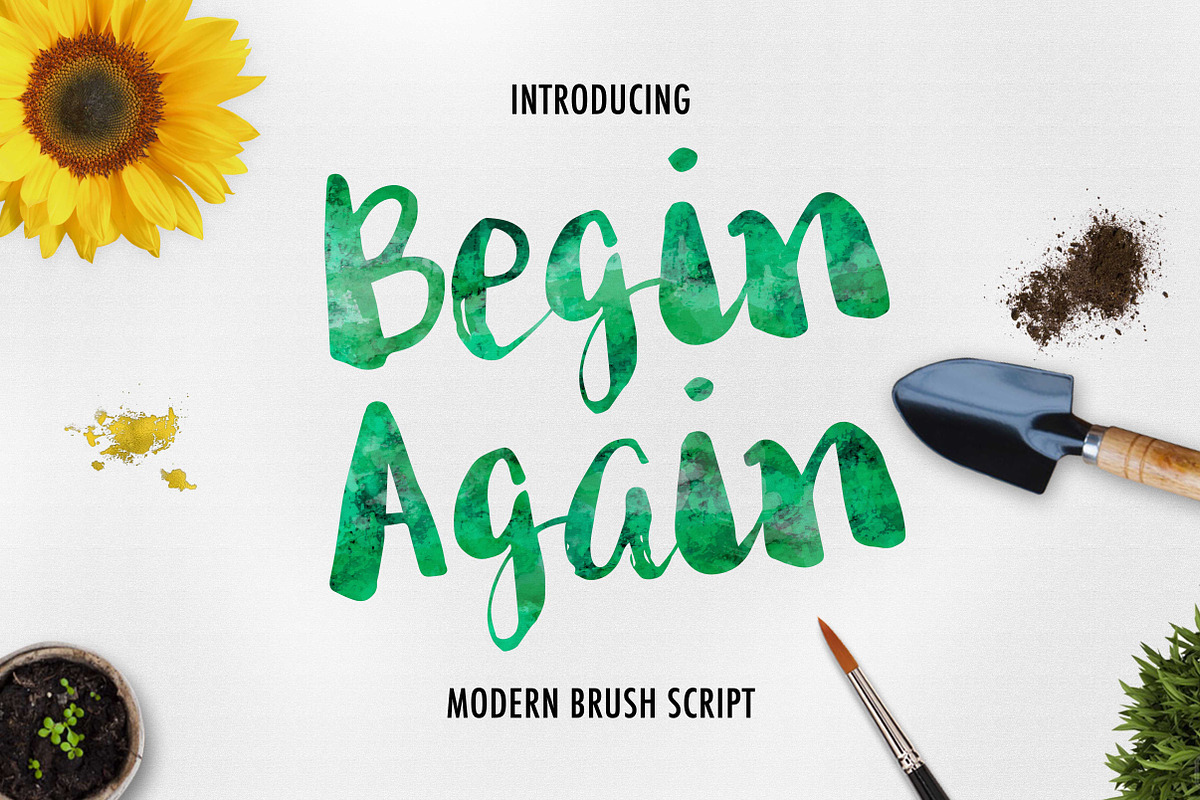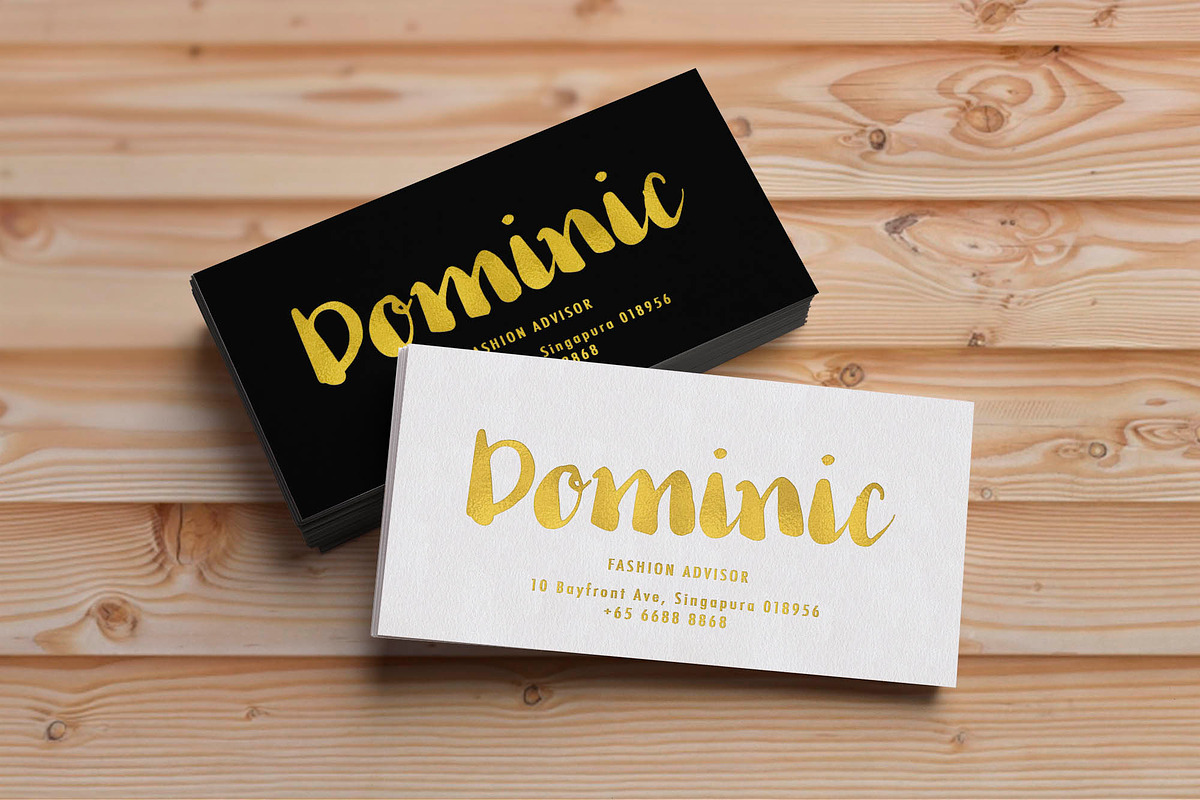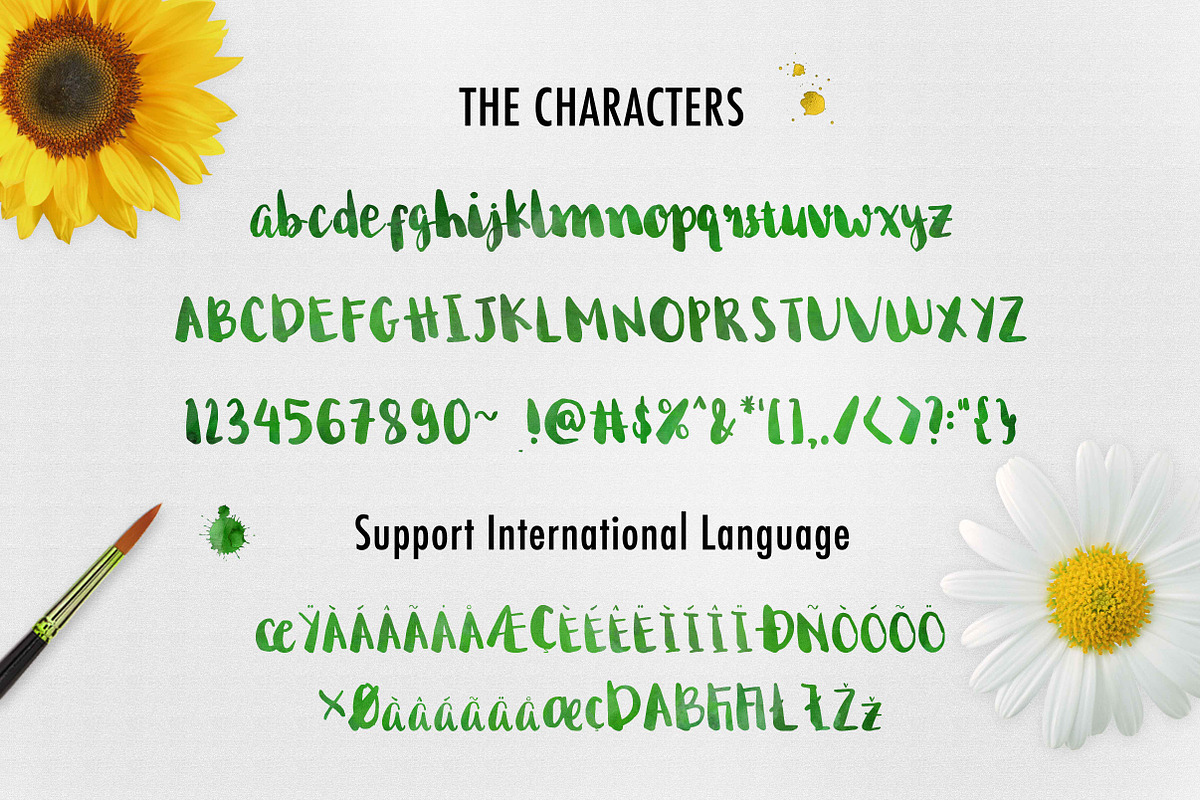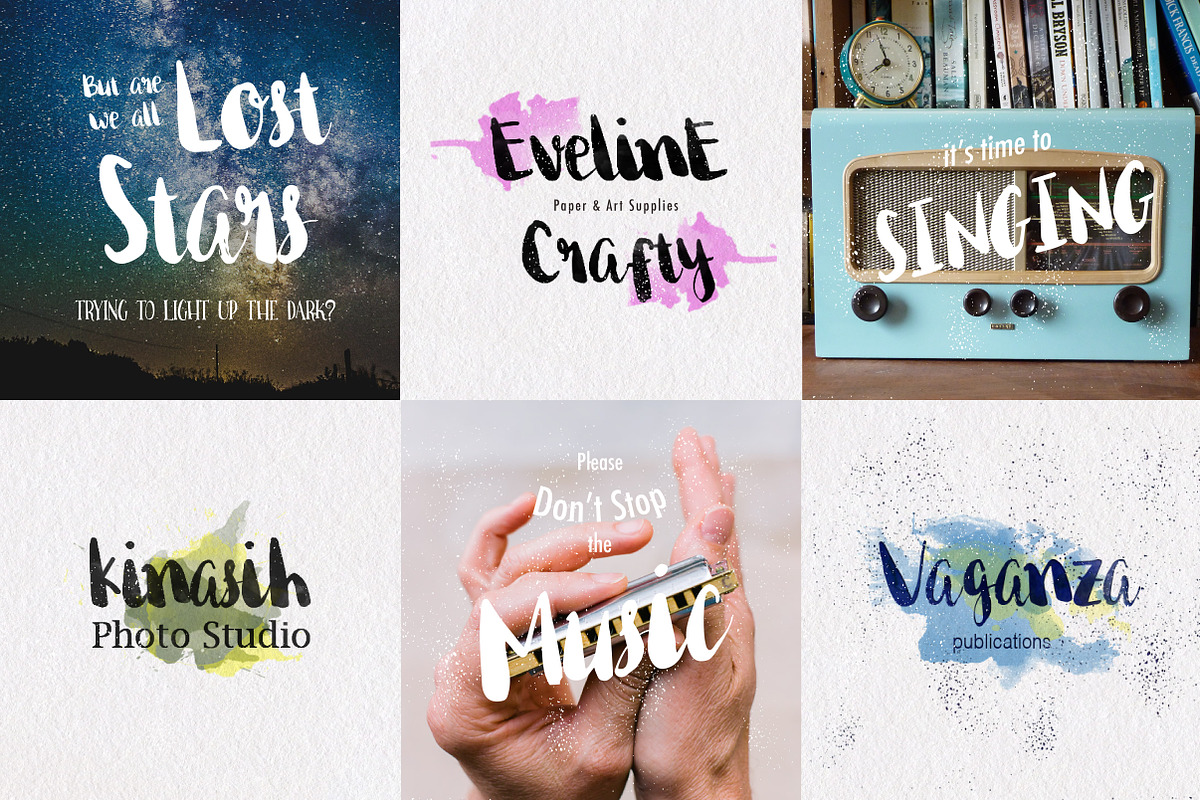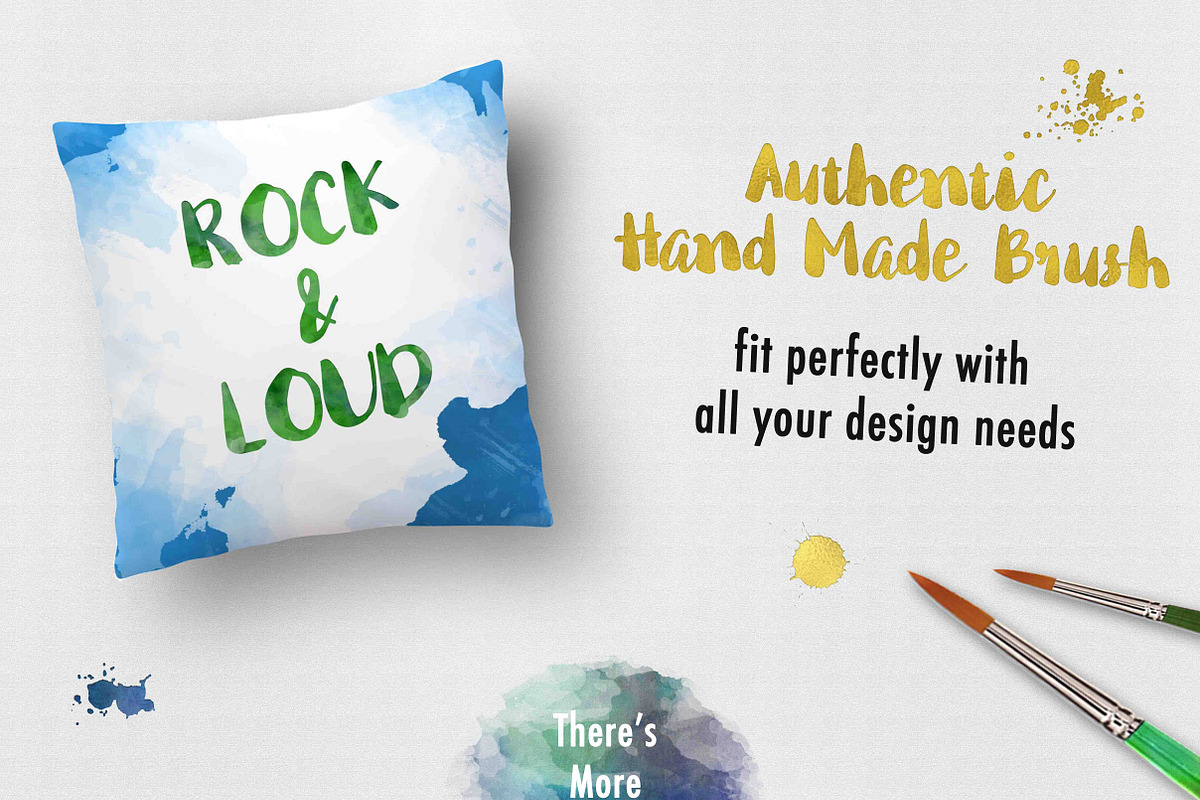
Begin Again Brush Typeface
Begin Again Brush Typeface by Davendra Typeface is a font selected for branding, posters, packaging, typography.
- With dancing baseline characters that will awake your creativity and save your valuable tons of time to make amazing work.
Why Begin Again Brush Typeface is worth a look
Begin Again Brush Typeface by Davendra Typeface fits naturally into Branding, posters, packaging, typography.